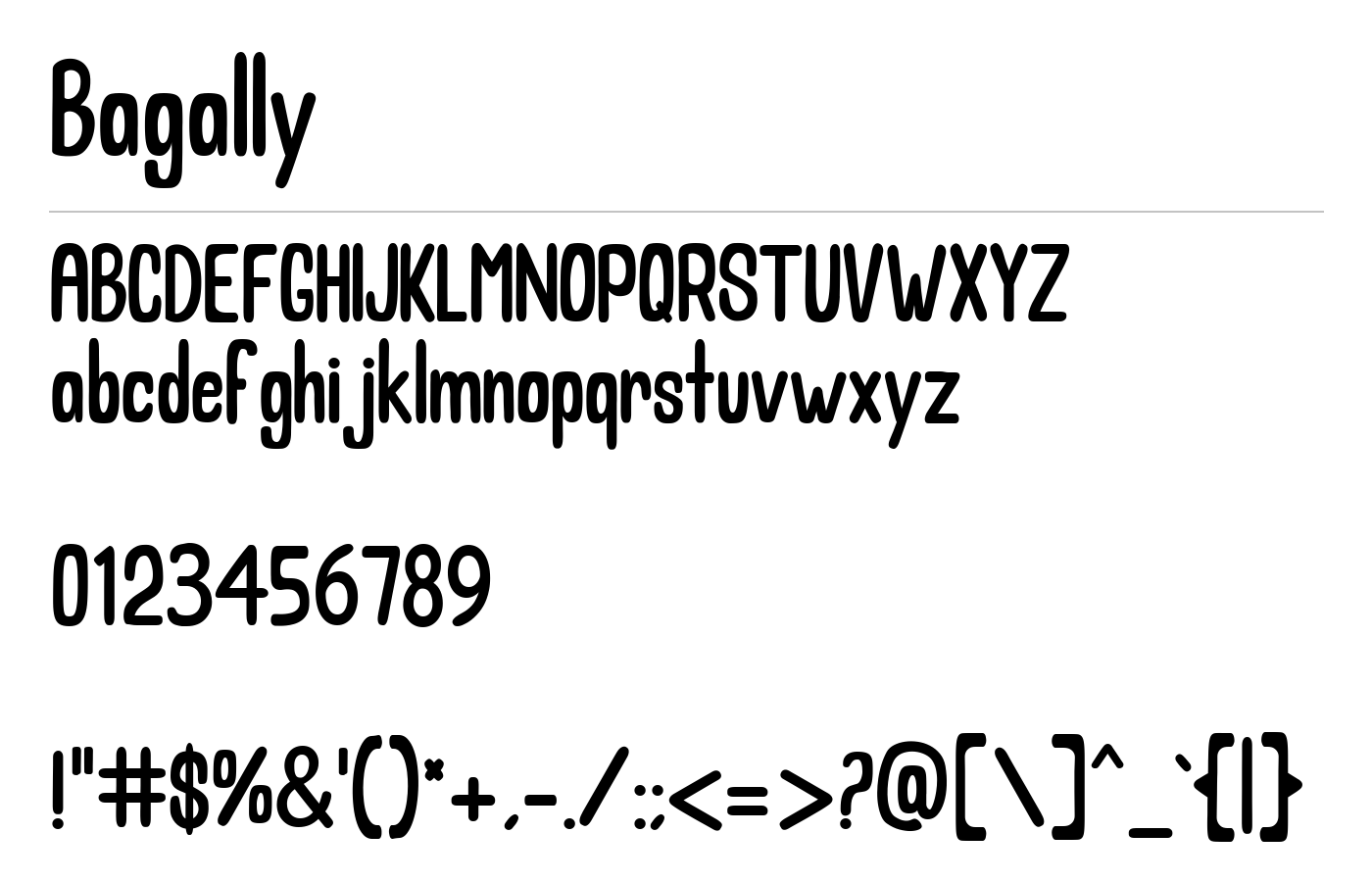
Bagally is a casual, tall sans serif font with rounded edges and a friendly, approachable feel. Its slightly condensed letterforms and moderate x-height make it ideal for fun, informal branding, headlines, and playful editorial designs where readability and personality are key. This font works well for projects seeking a modern yet relaxed vibe.
Bagally Font
About Bagally Font
| Designer | Luis Galvan |